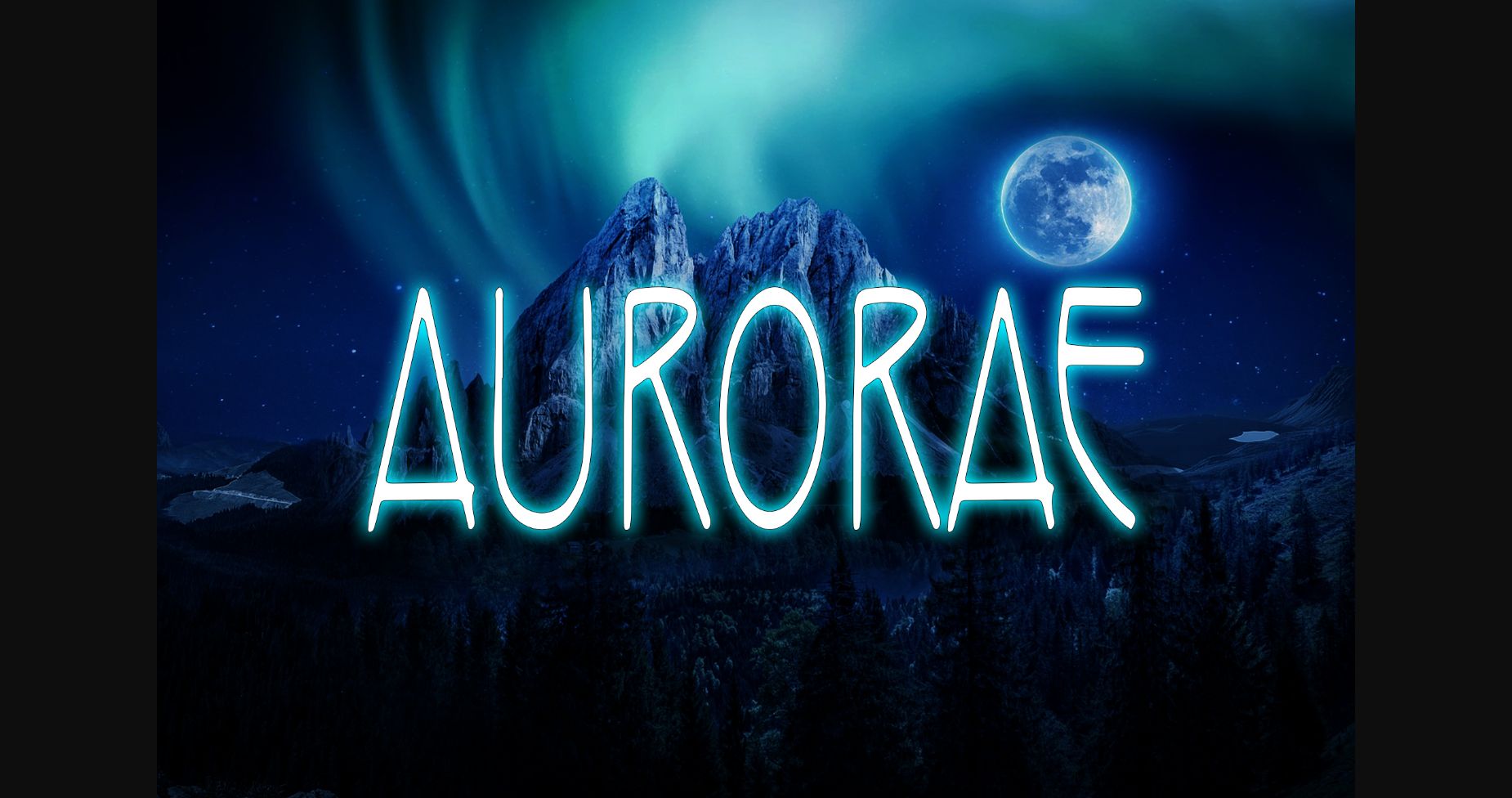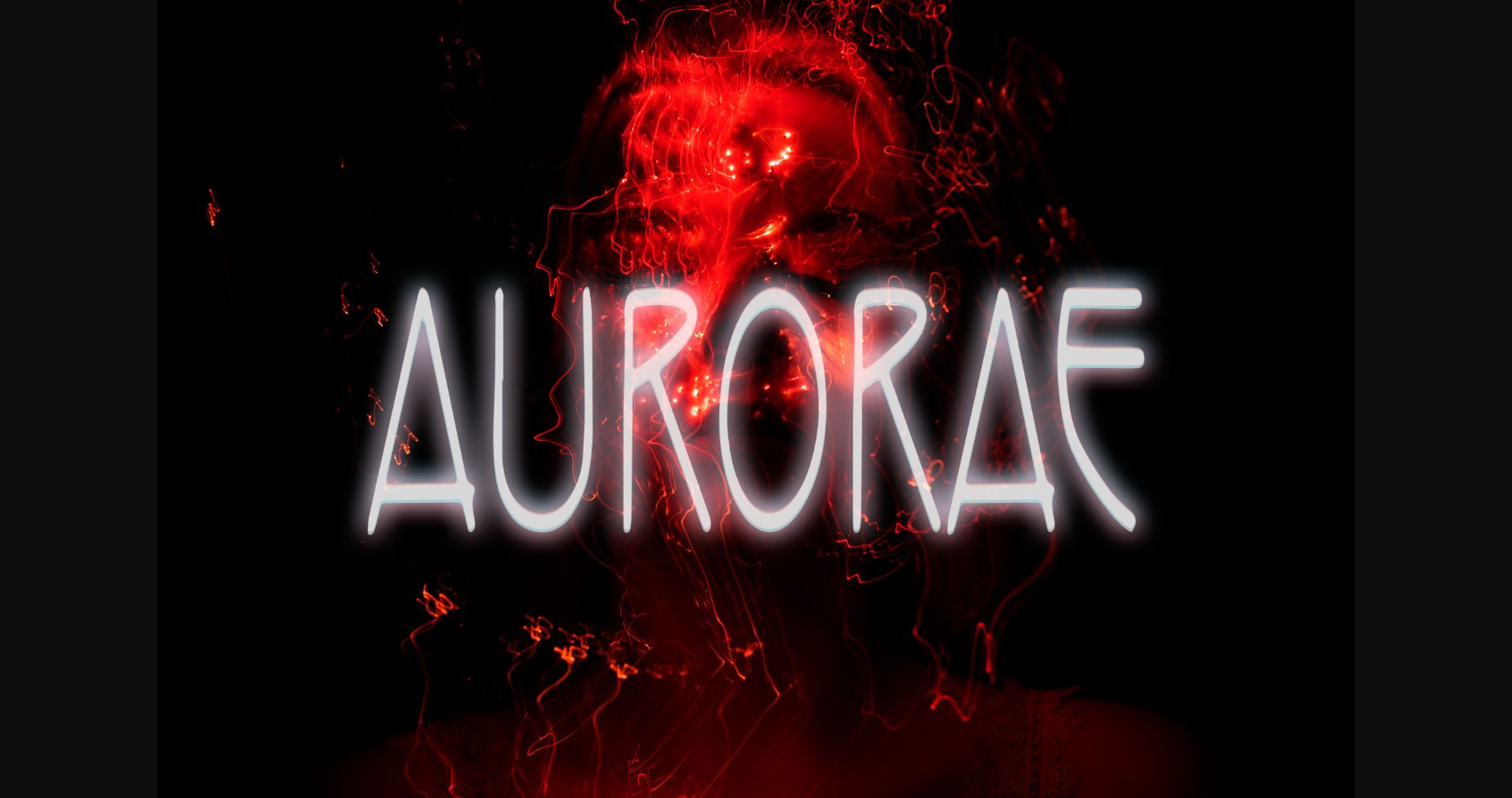
About Aurorae Font
Aurorae is a minimalist and cool sans serif font. It can easily be matched to an incredibly large set of projects, so add it to your creative ideas and notice how it makes them stand out!